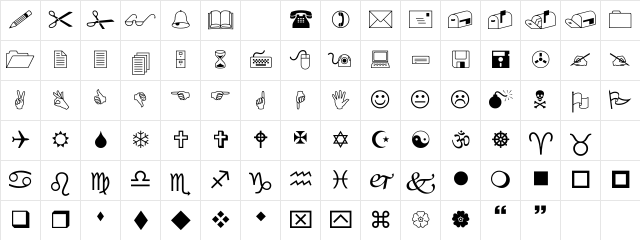
Swingdings Regular
Design Context for Swingdings
Swingdings is a composed and adaptable typeface that performs quietly and consistently across a wide range of design contexts.